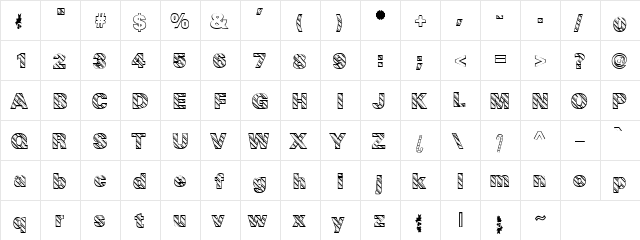
Chrome Fx Regular
Design Context for Chrome Fx Typeface
Chrome Fx is a composed and adaptable typeface that performs quietly and consistently across a wide range of design contexts.